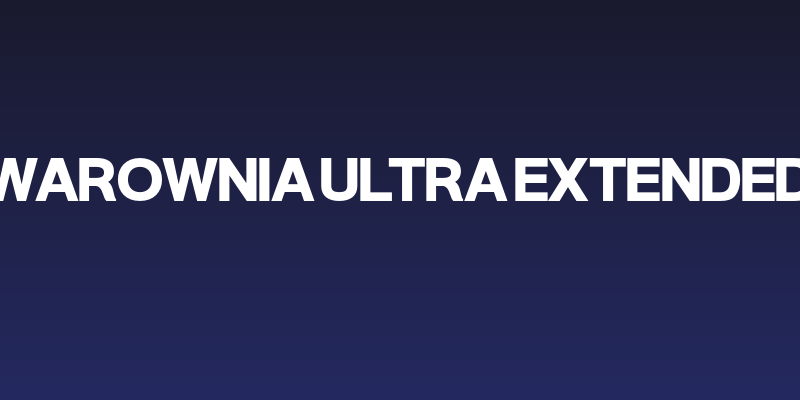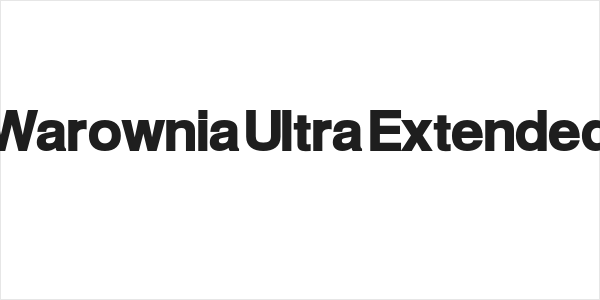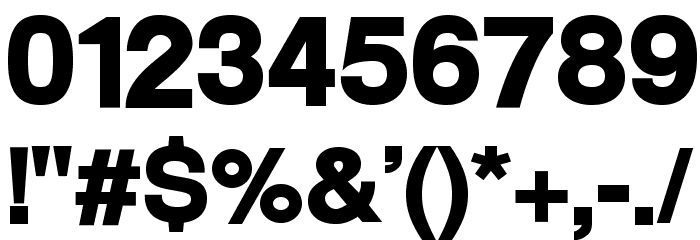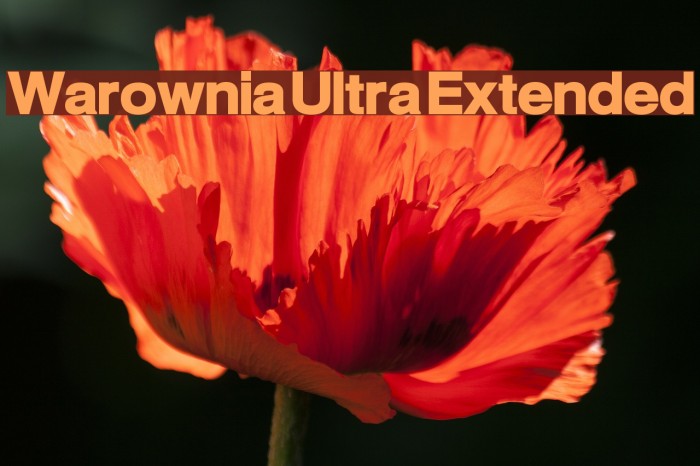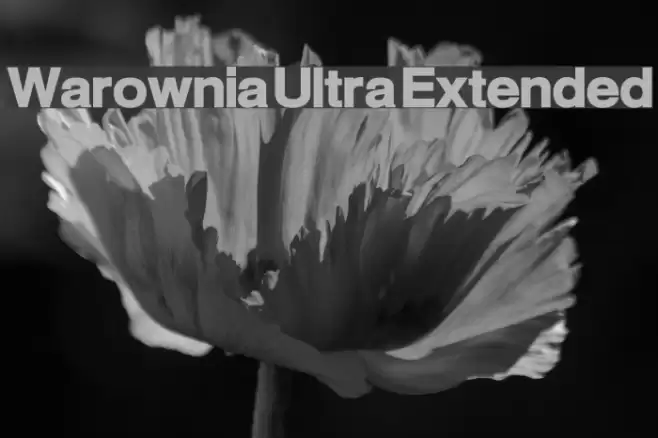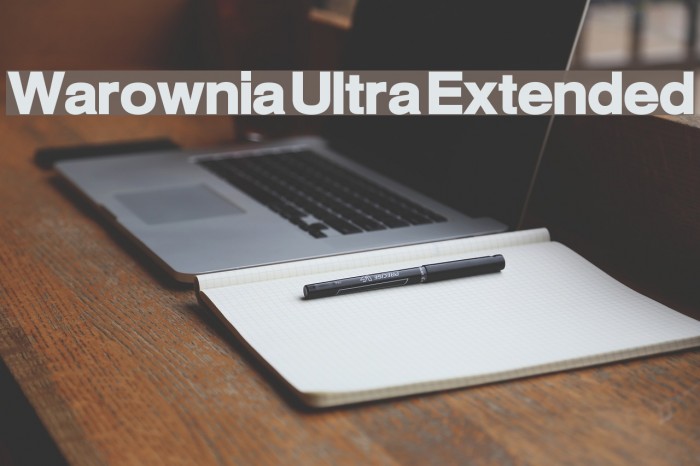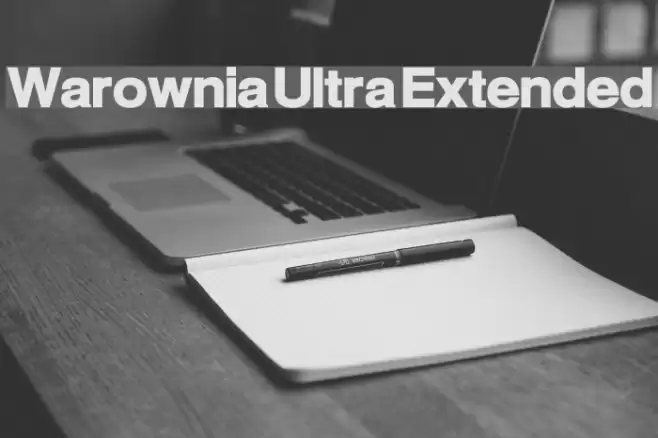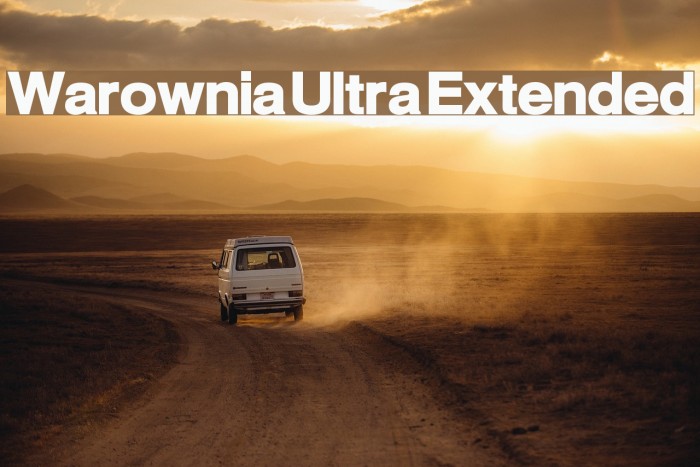
Warownia Ultra Extended Font
Warownia Ultra Extended Description
This font features a bold and ultra-extended style, characterized by its thick strokes and wide letterforms. It presents a strong and impactful appearance, making it highly suitable for attention-grabbing designs. The uppercase and lowercase letters maintain a consistent weight, providing a uniform look across all characters. The numerals and special characters are equally bold, ensuring readability and emphasis. This font's design is modern and straightforward, with no additional flourishes or embellishments, emphasizing clarity and strength.
| Proposed Projects | Ideal for headlines, posters, branding materials, and any design requiring a strong visual impact. |